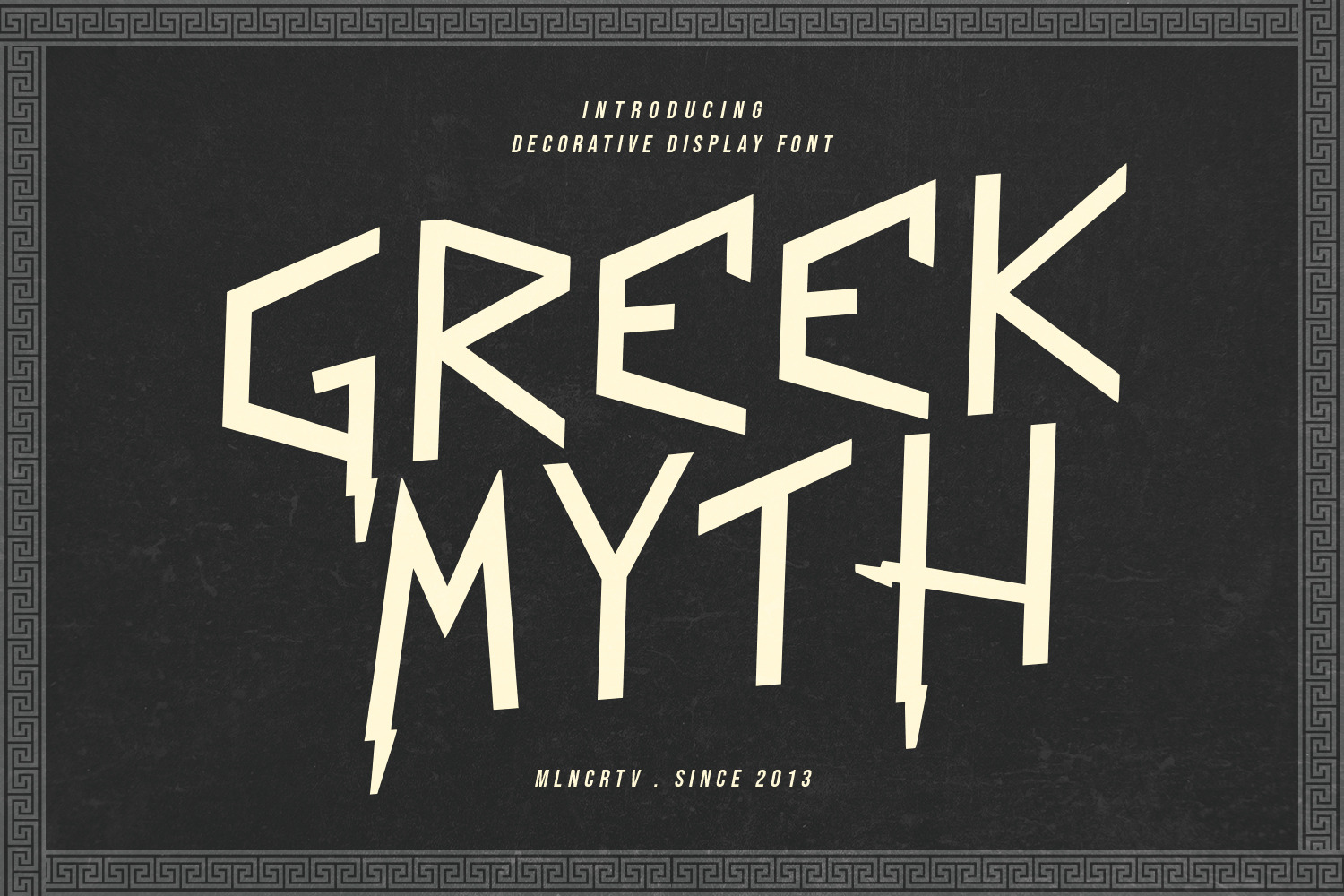
Greek Myth Decorative Display Font
Greek Myth is a decorative display font. Bold stroke, fun character with a bit of ligatures and alternates. To give you an extra creative work. Greek Myth font support multilingual more than 100+ language. This font is good for logo design, Social media, Movie Titles, Books Titles, a short text even a long text letter and good for your secondary text font with script or serif. Make a stunning work with Greek Myth font.